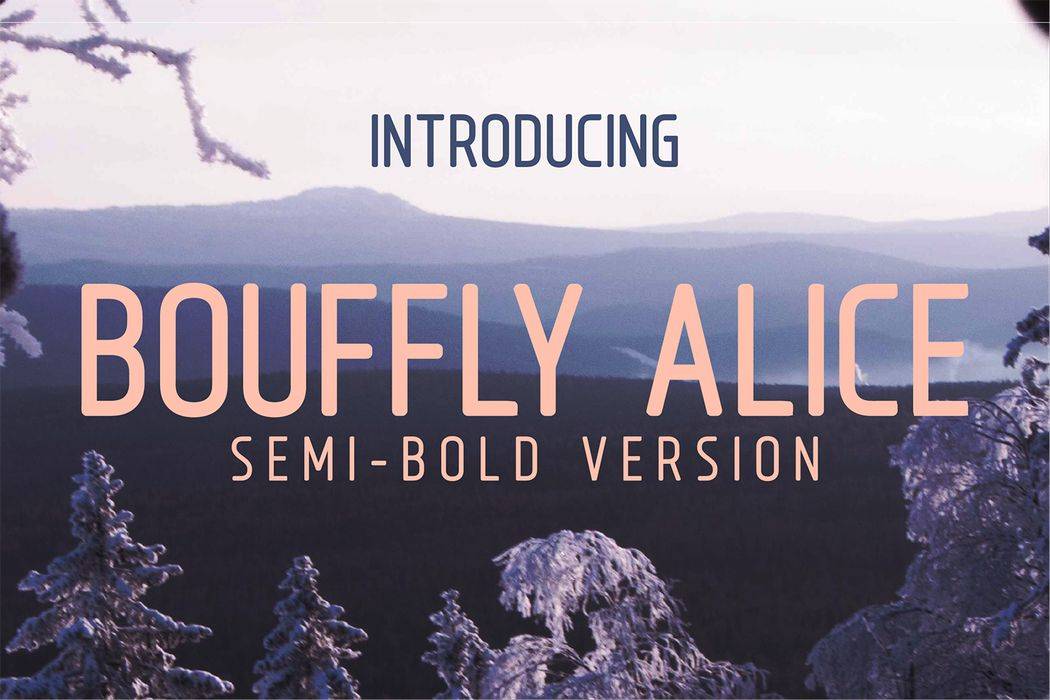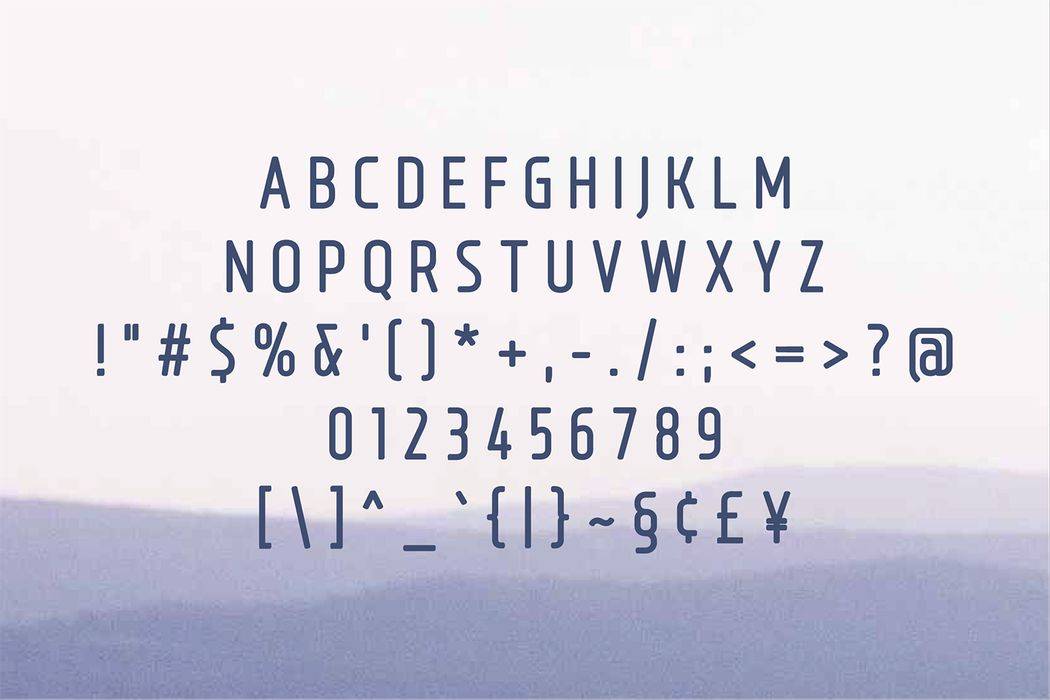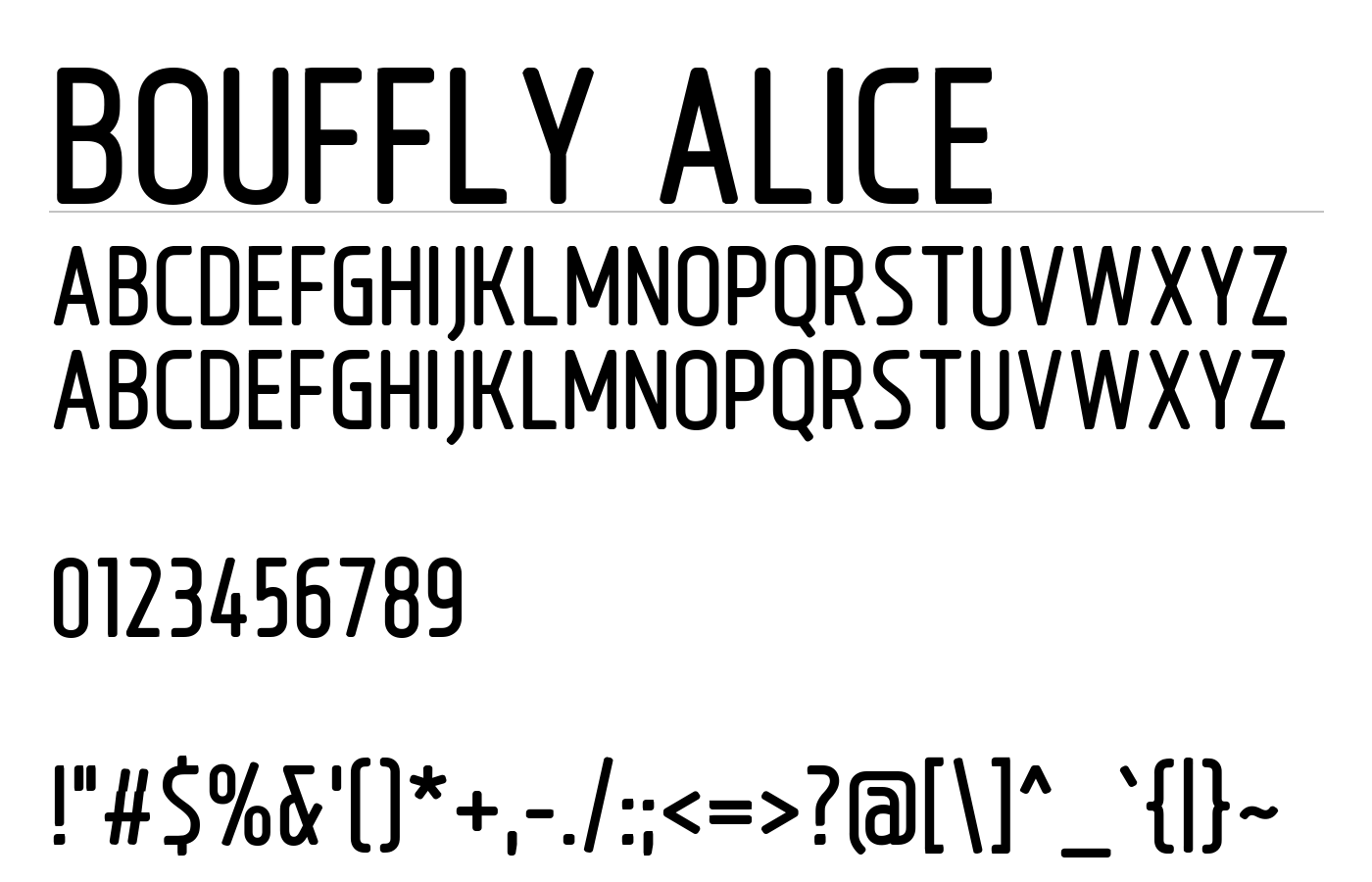
Bouffly Alice is a tall, narrow sans serif font with a clean and modern look, characterized by its consistent stroke weight and slightly rounded corners that give it a friendly yet professional feel. Its condensed form and clear letterforms make it ideal for impactful headlines, logos, and branding where space is limited but clarity is essential. This font works well for contemporary designs that seek a sleek, straightforward aesthetic without sacrificing warmth or approachability.
Bouffly Alice Font
About Bouffly Alice Font